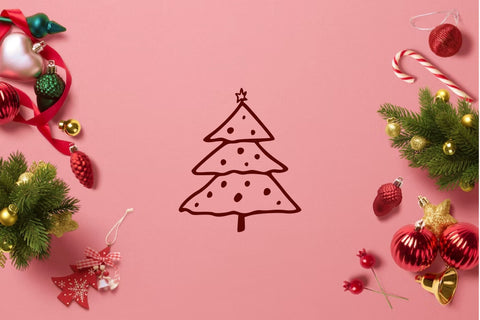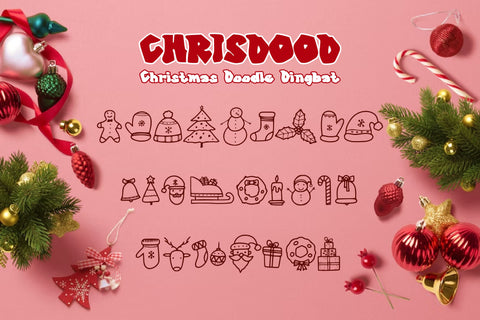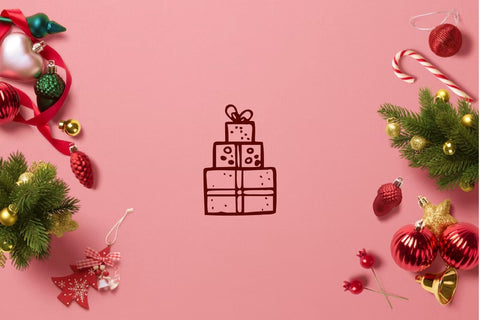
Chrisdood - A Christmas Doodle Font
Chrisdood is a unique and fun dingbat category font!. This font is made in original hand drawn doodle line style. This font is perfect for Christmas celebrations. This font is also perfect for craft products, cricut, children's books, gifts, stickers, and much more